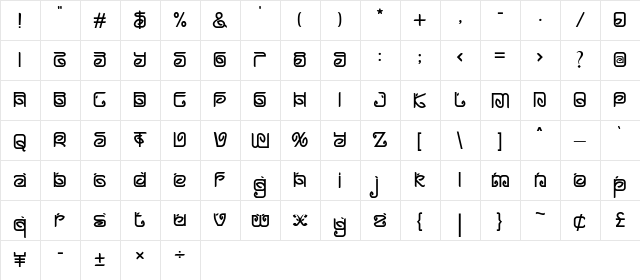
Greentea Regular
Design Context for Greentea Typeface
Greentea is a composed and adaptable typeface that performs quietly and consistently across a wide range of design contexts.